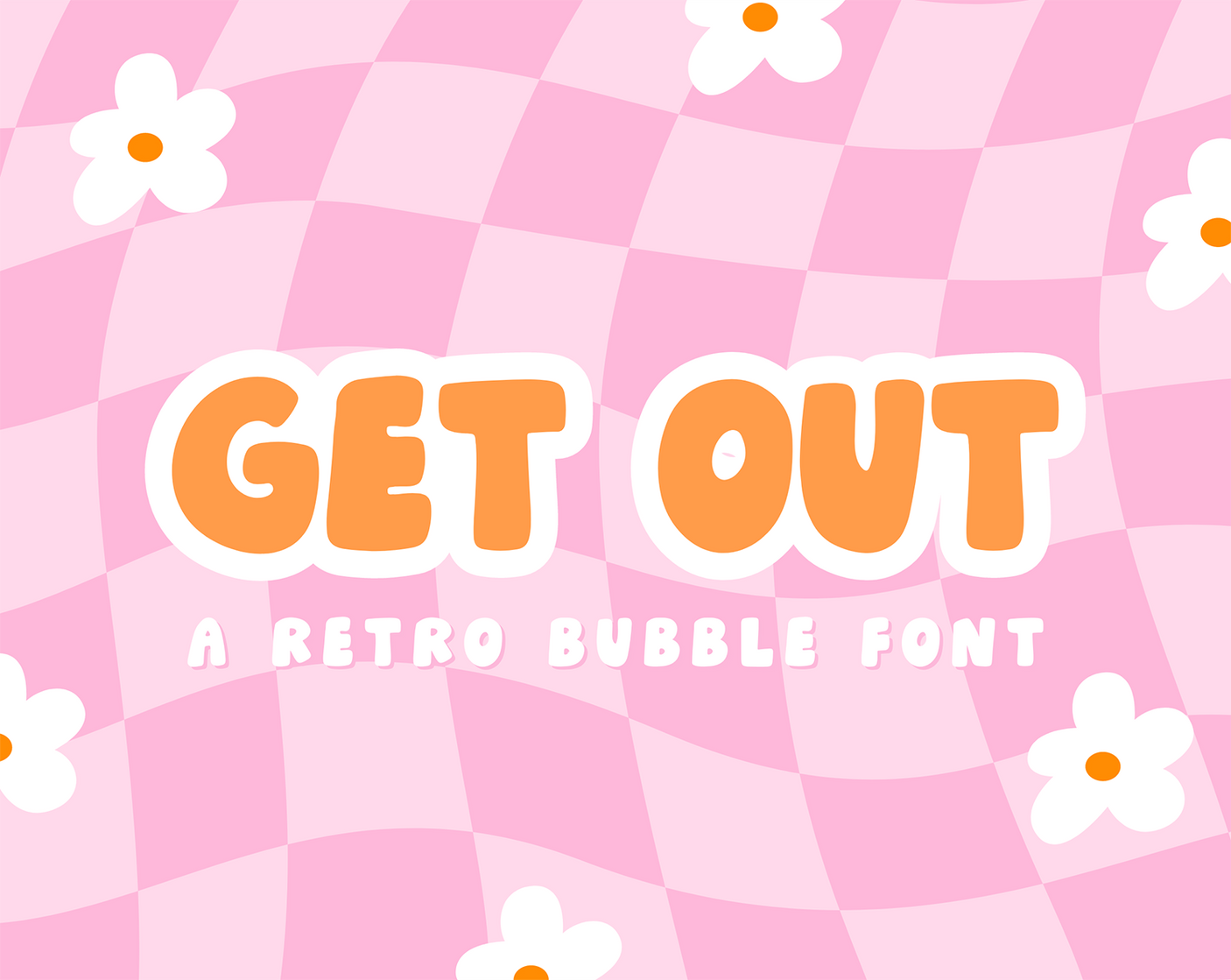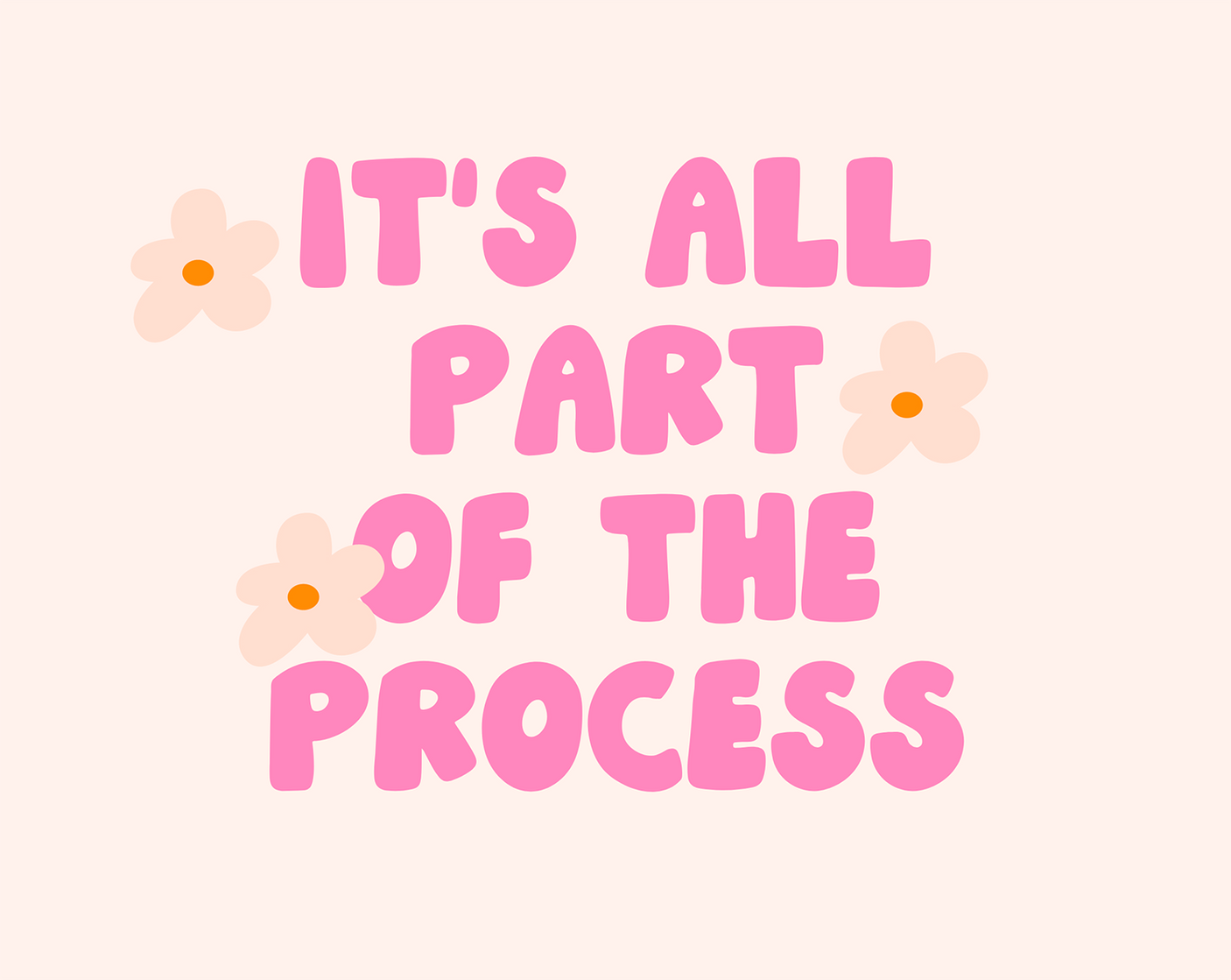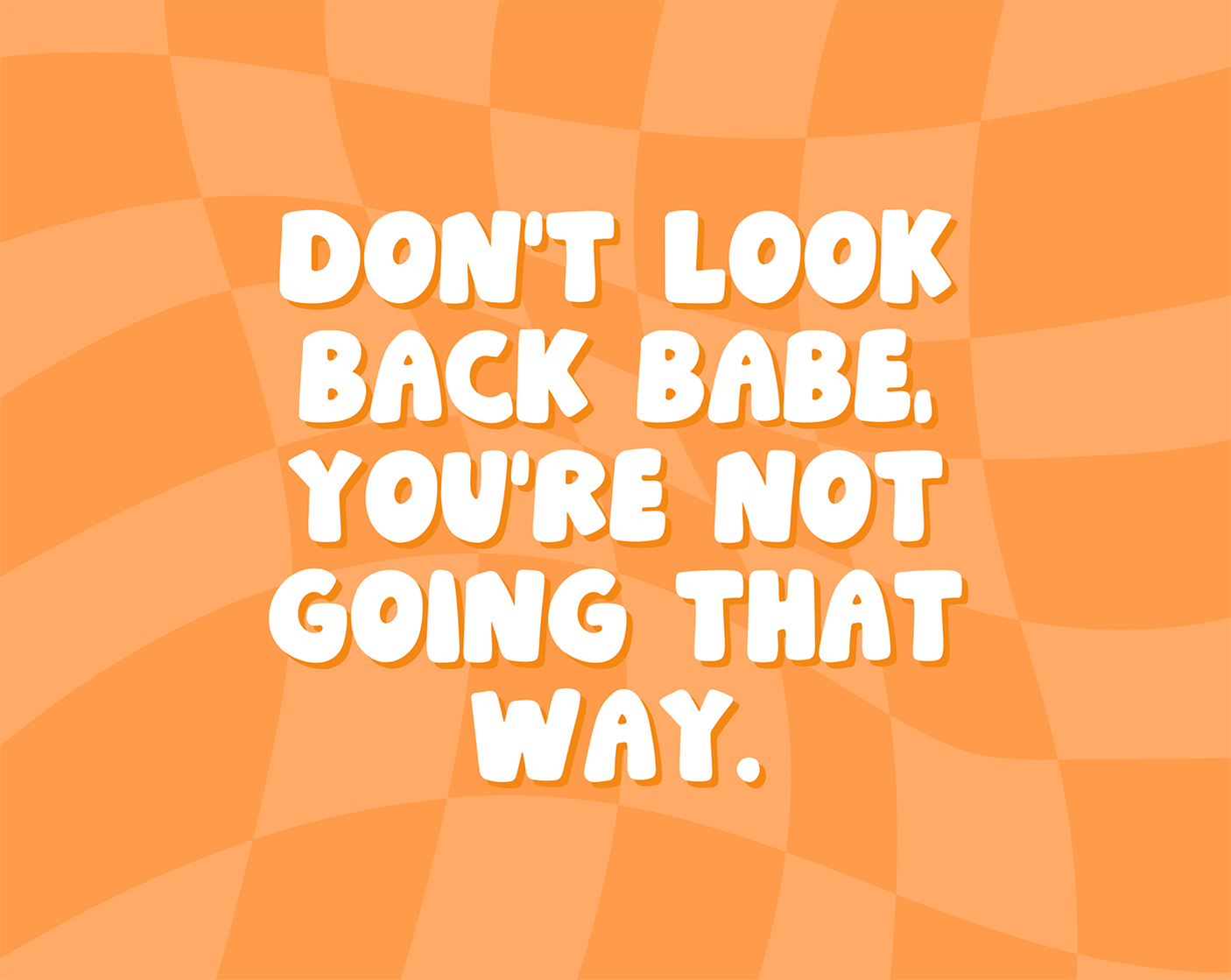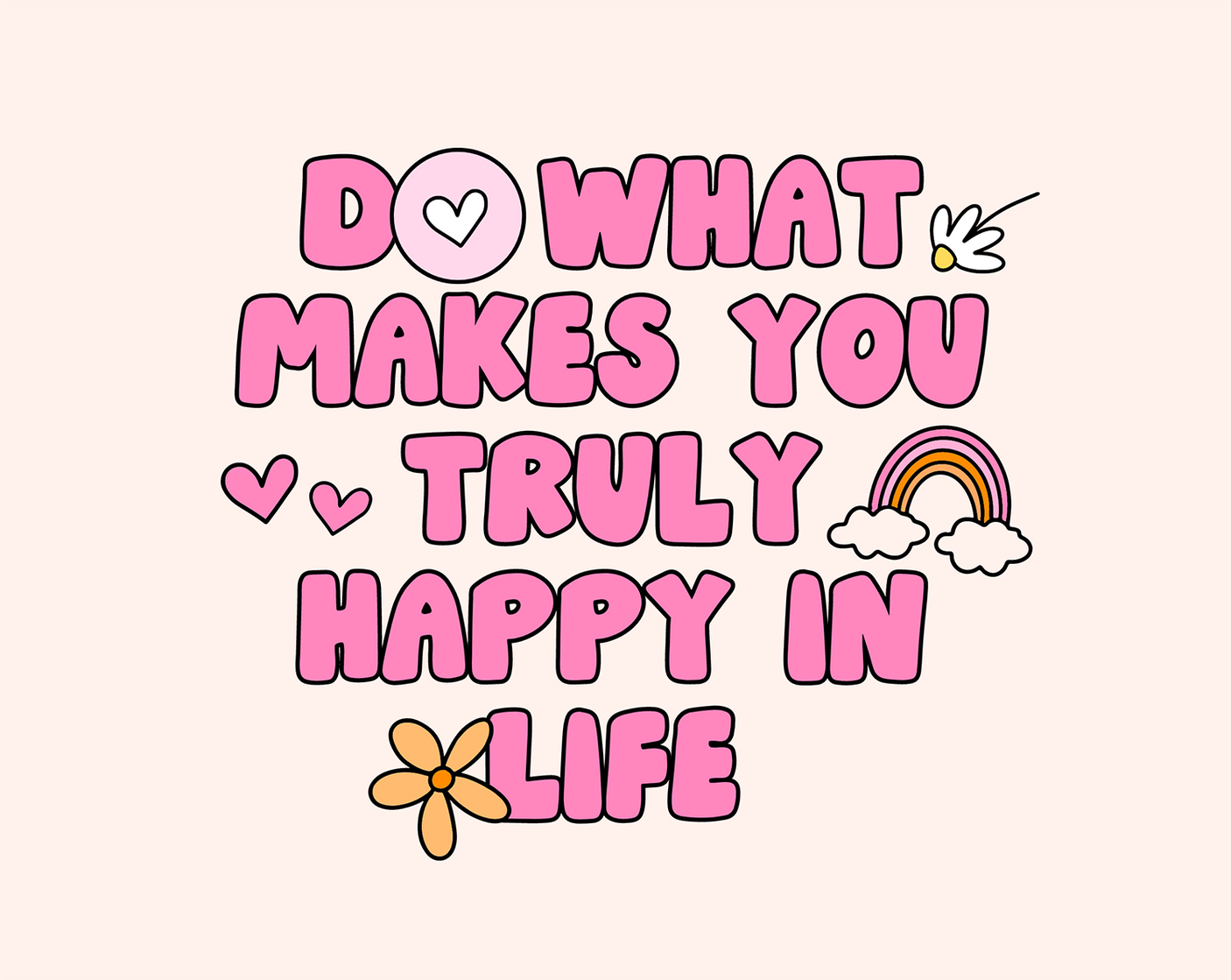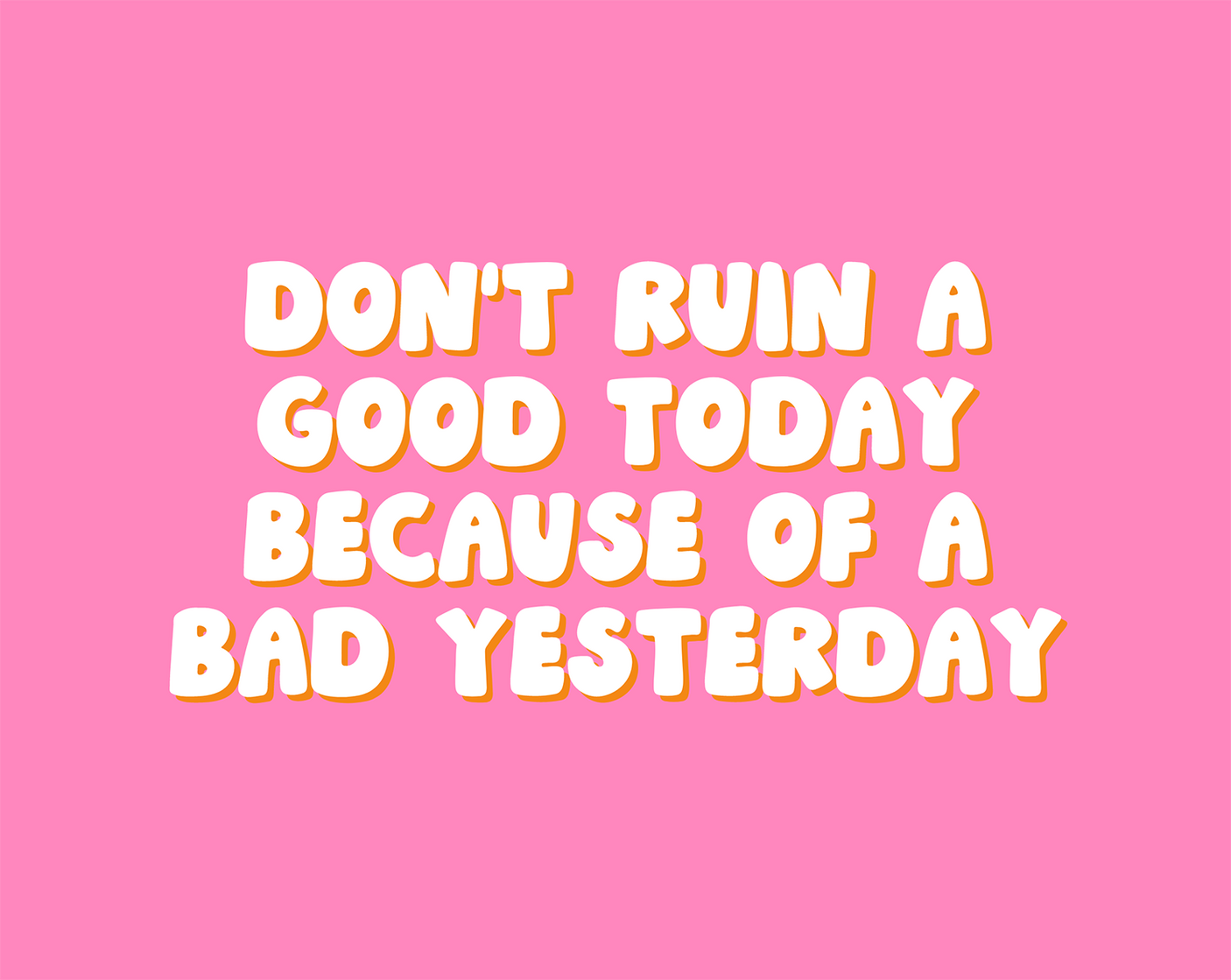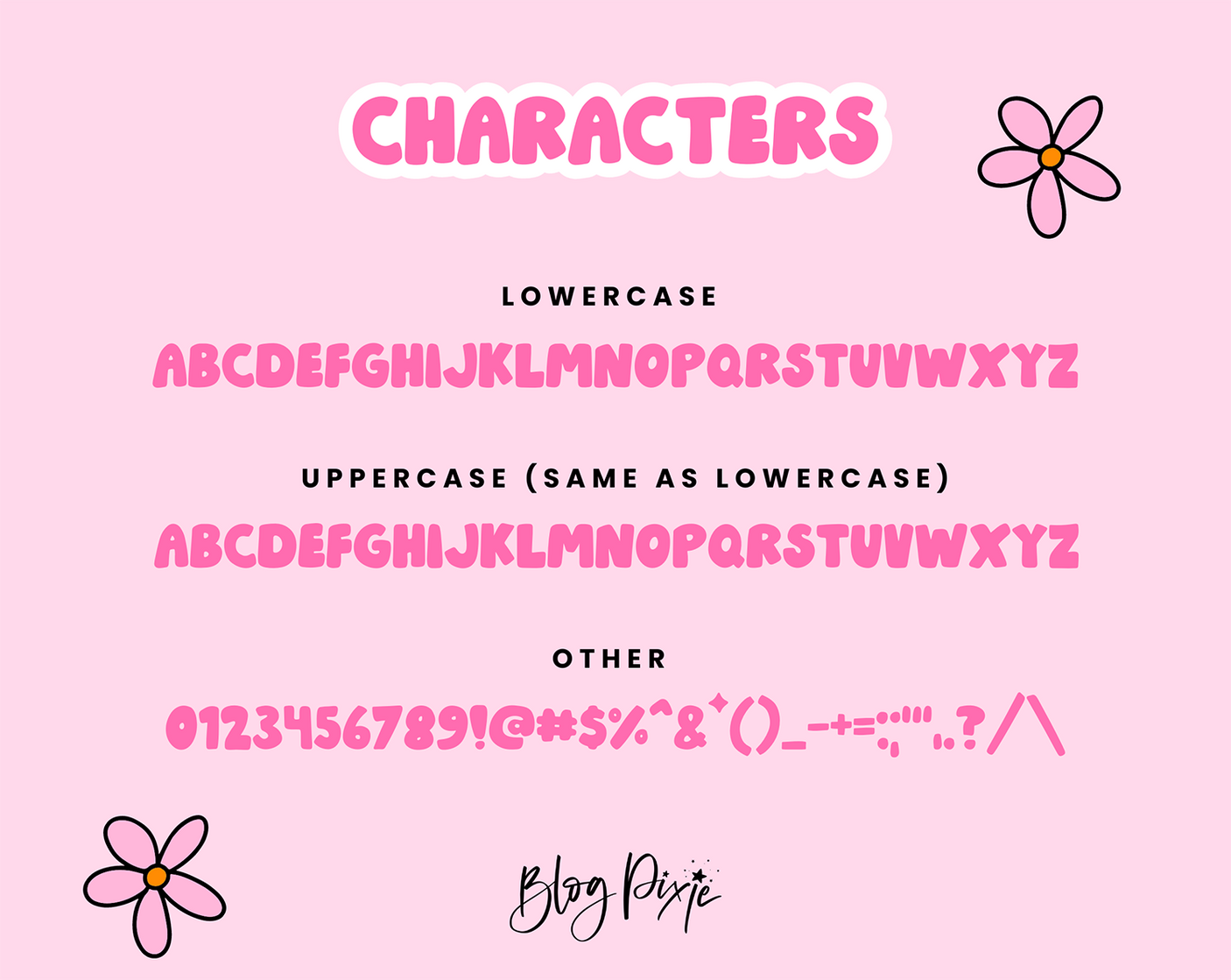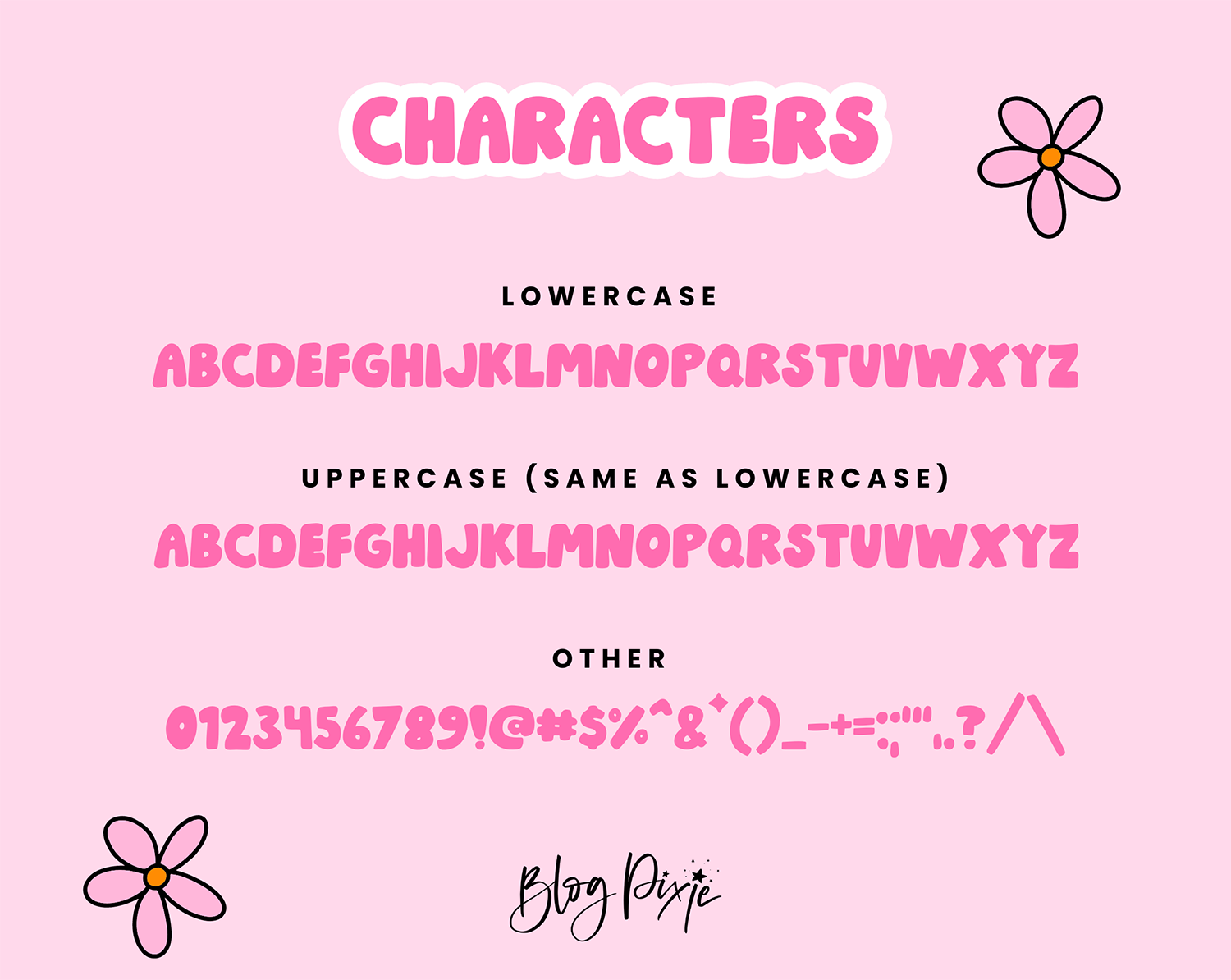
Get Out Font
Retro bubble font called Get Out. This bold lettering font in all uppercase can be used for Cricut, Procreate, Photoshop, iPad and more. It’s a fun font perfect for lettering quotes, crafty work, stickers, SVG designs and digital projects.